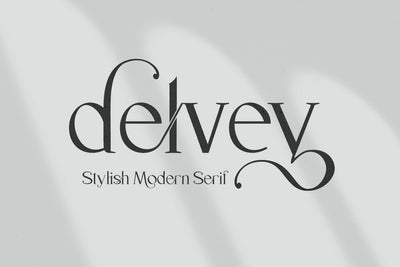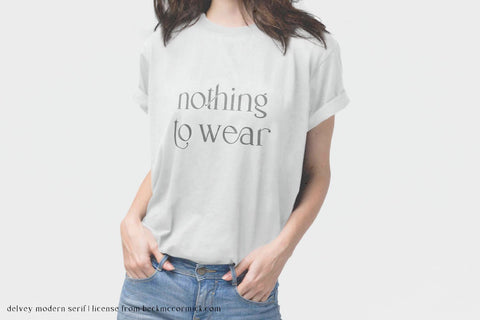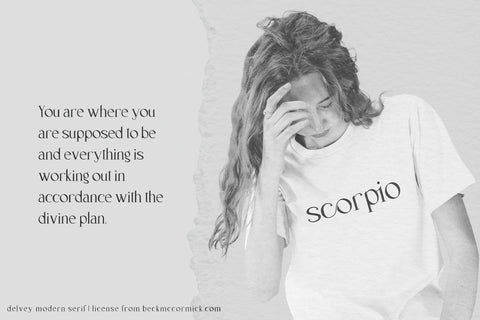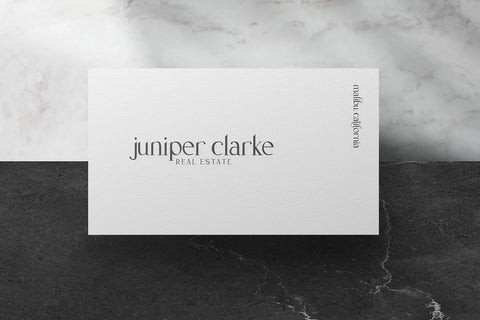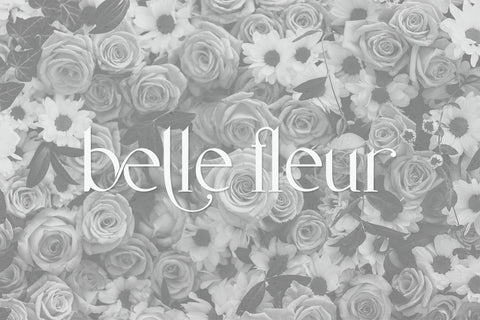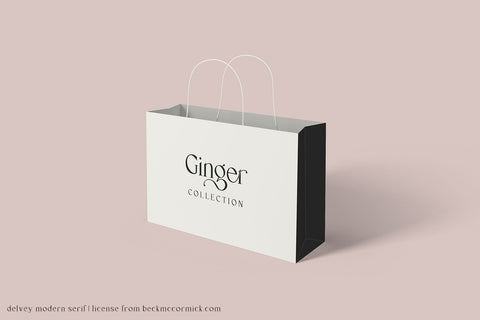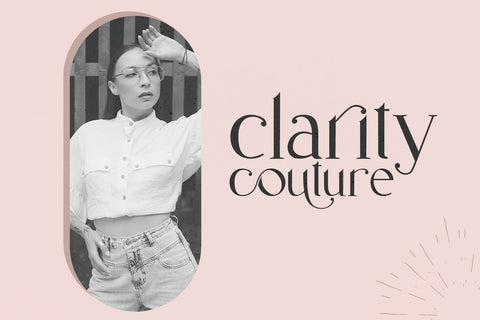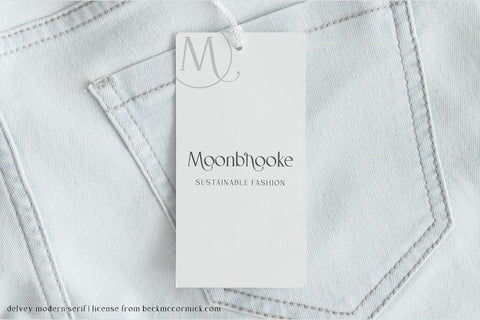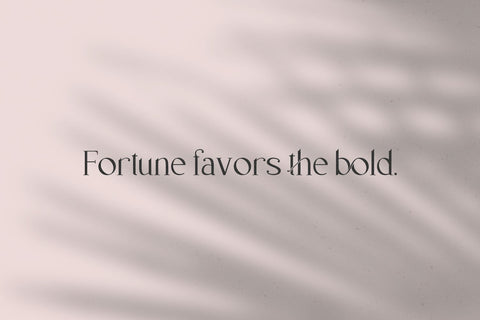
Delvey Modern Serif Font
Introducing Delvey, a modern serif font with extras. Delvey features plenty of chic stylistic alternates and stylish ligatures that elevate your design without having to lift a finger. Delvey is a versatile font, with possibilities for use across the design world.
Delvey is best for:
- logos + branding, especially cosmetics, fashion, & clothing brands
- website design + website accents - think travel blogs, fashion blogs, & more
- clean print design, like magazines + flyers
- header elements that need a clean, modern look
- quote graphics for social media
- chic graphic tees
- full upper + lowercase characters
- 50 alternate characters to add a little extra flow & ornamentation
- 85 ligatures - Th, bd, be, bi, bj, bo, bp, bq, br, cd, ck, co, cr, ea, ela, eld, eli, elm, eln, elp, elt, elv, em, en, eo, ep, er, es, ete, eth, eti, fb, ff, fh, fi, fj, fk, fl, ft, gh, ha, ia, id, ih, ii, isk, it, la, li, lm, ln, ma, mi, na, ni, ob, oc, oe, oi, oj, om, on, oo, op, oz, pb, pd, pe, pi, po, pp, pq, qu, ri, rr, sh, ss, th, ti, tm, tn, tt, vi, wi, zo